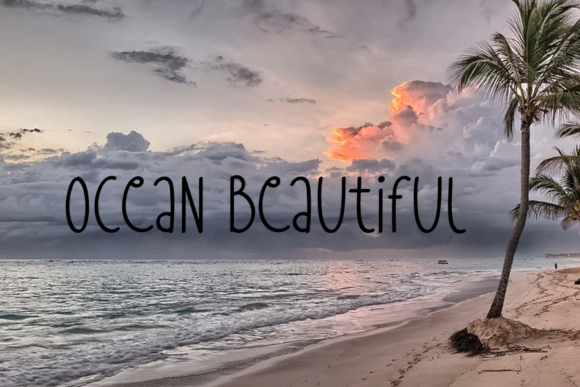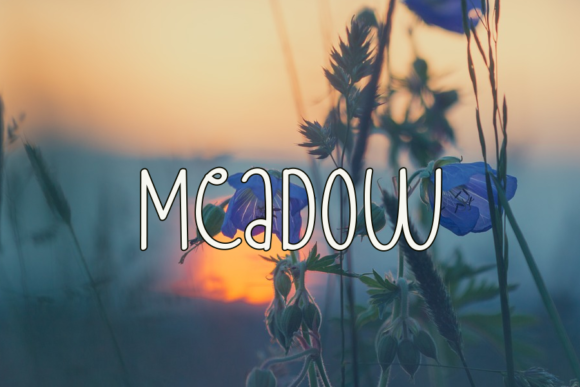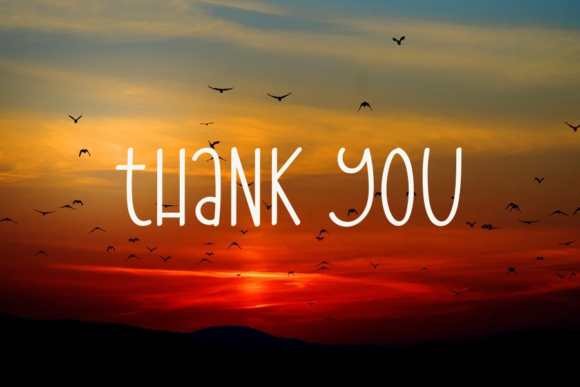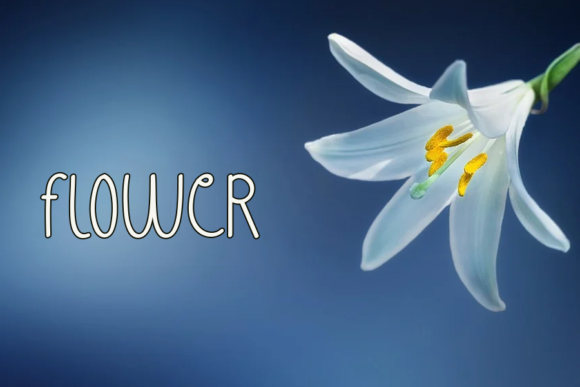
Happy Summer Font
About Happy Summer Font
Happy Summer is a cute, thin lettered and relaxed script font. Just like a summer day, this font will instantly brighten up your day. Add it confidently to your favorite creations and let yourself be amazed by the outcome generated.